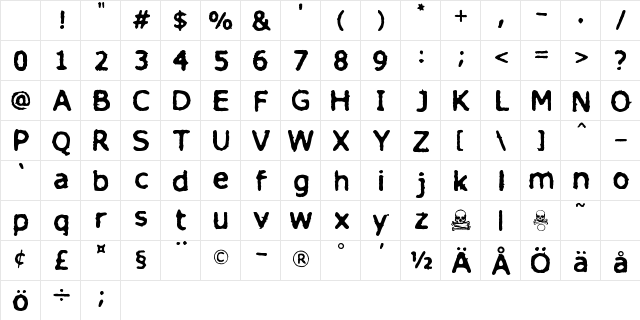
Complete finitimus iungo Regular glyph index. Displaying only characters natively supported by finitimus iungo Regular font.
finitimus iungo is a composed and adaptable typeface that performs quietly and consistently across a wide range of design contexts.